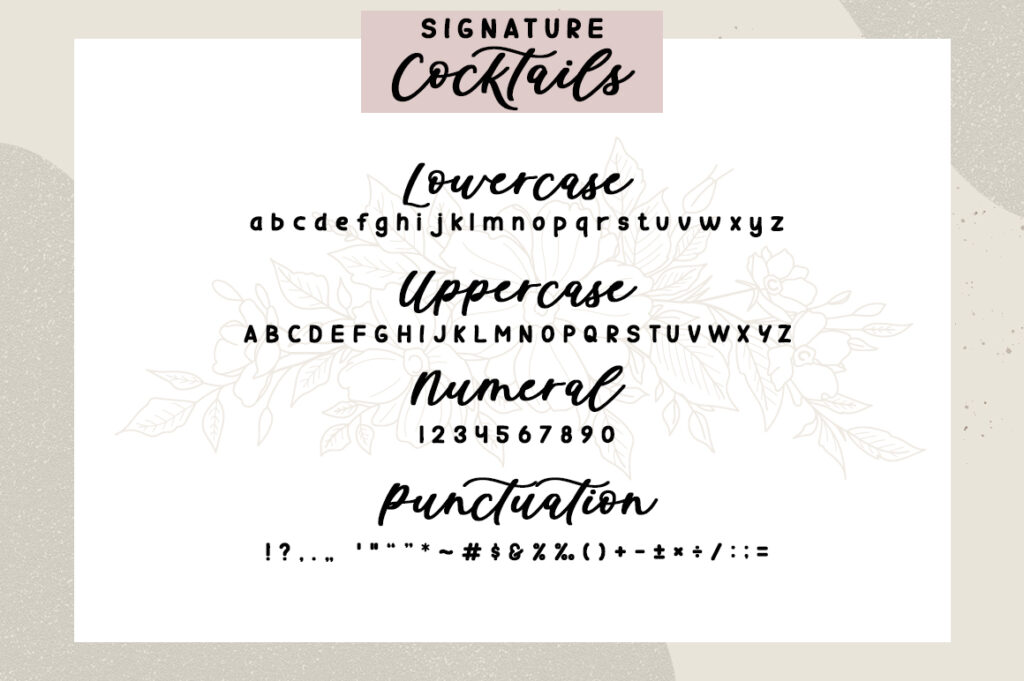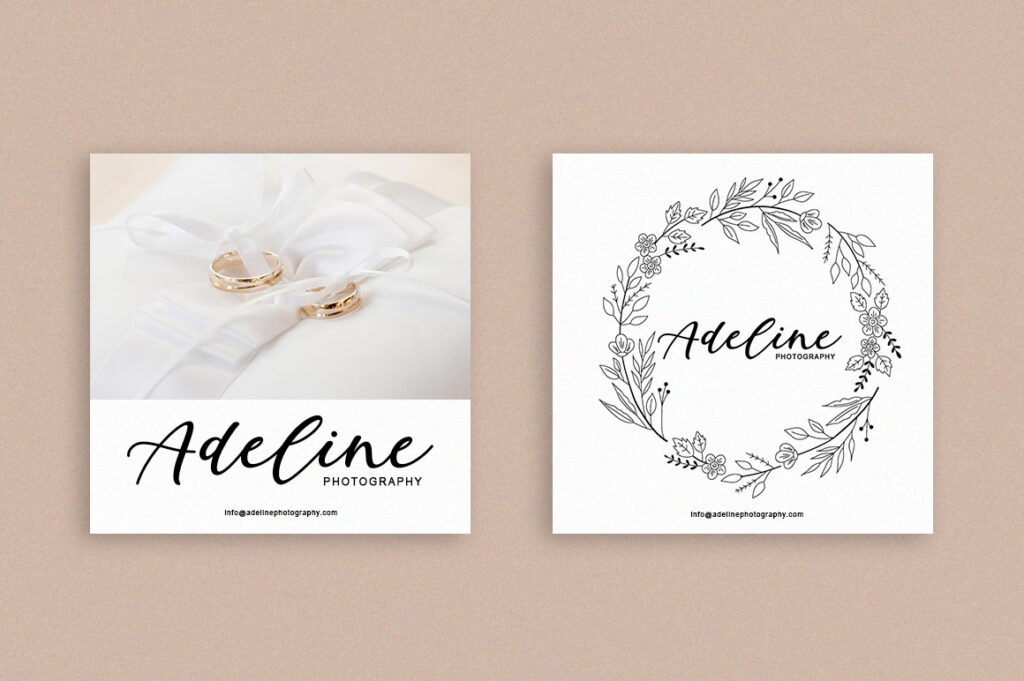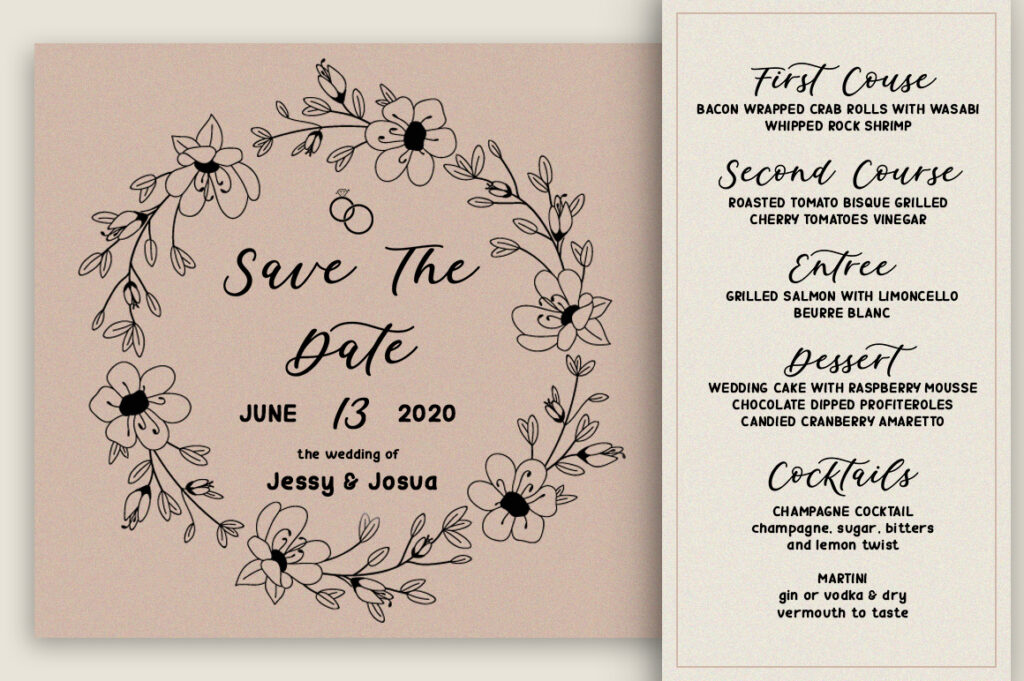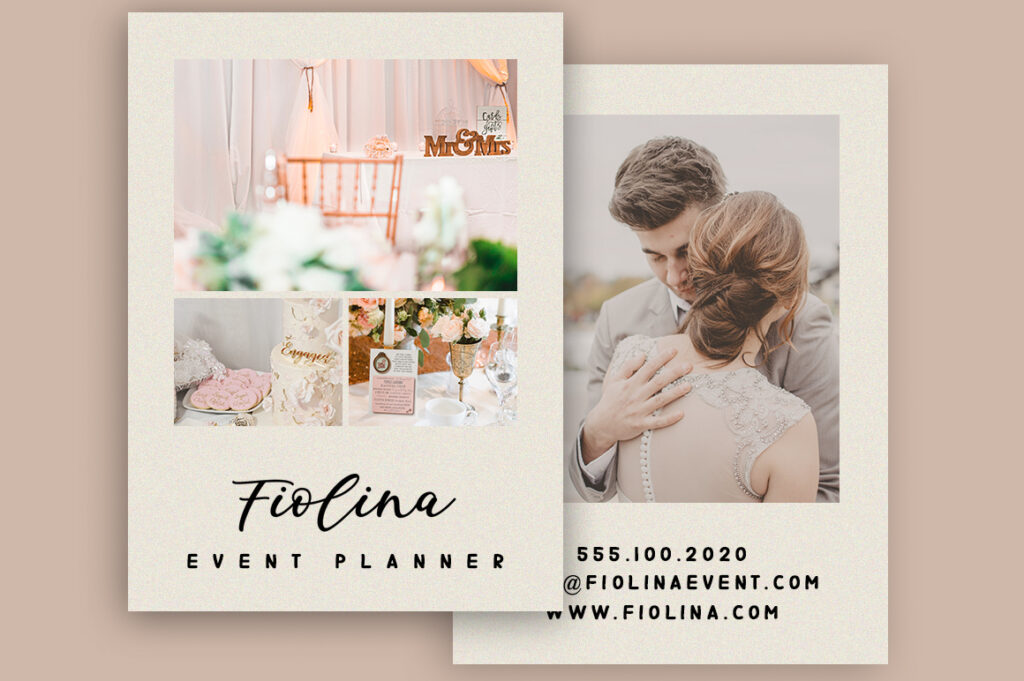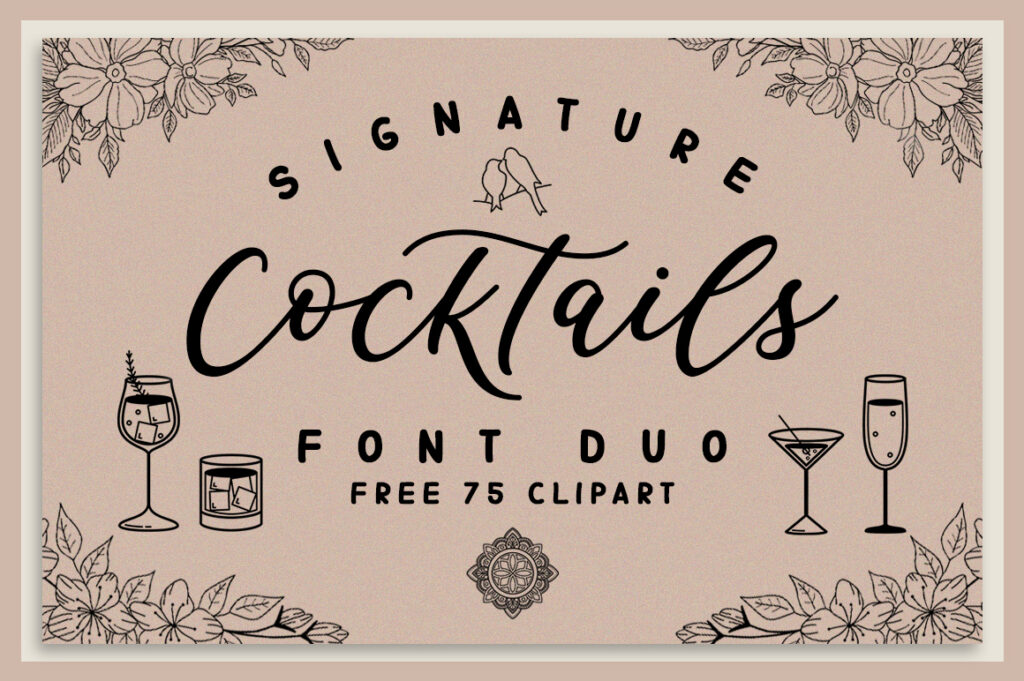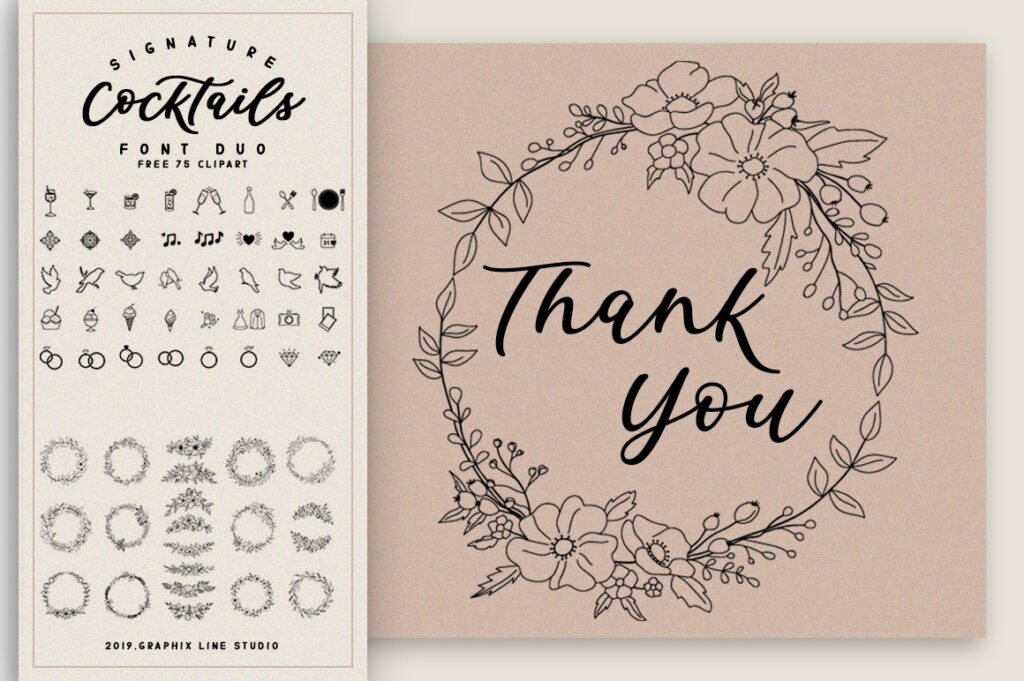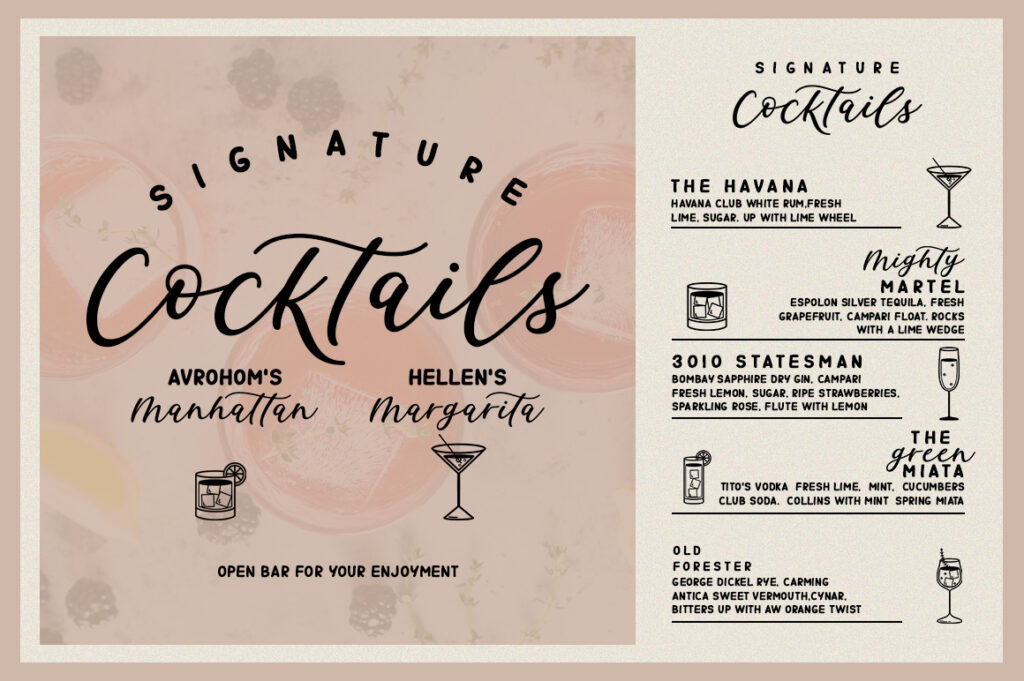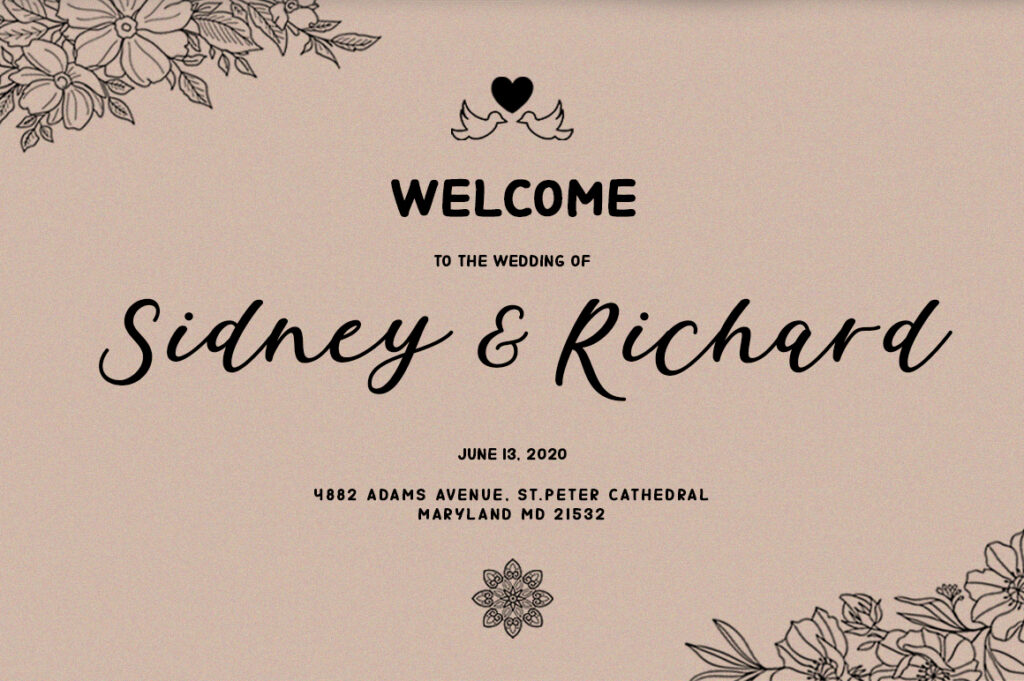
Signature Cocktails FONT DUO
Signature Cocktails is a modern caligraphy font that will allow you tocreate beautiful hand-made typography in an instant.